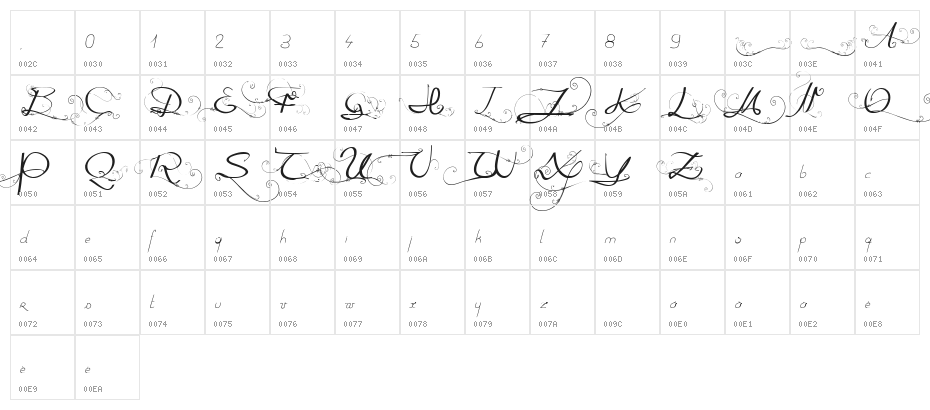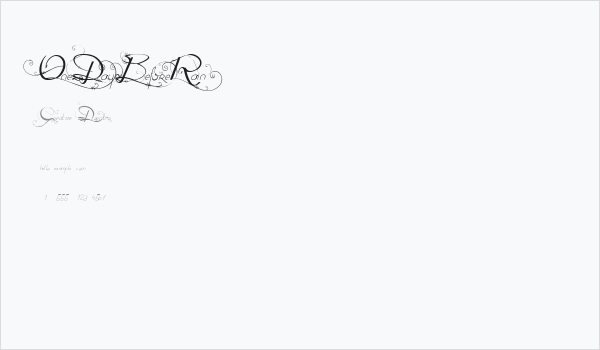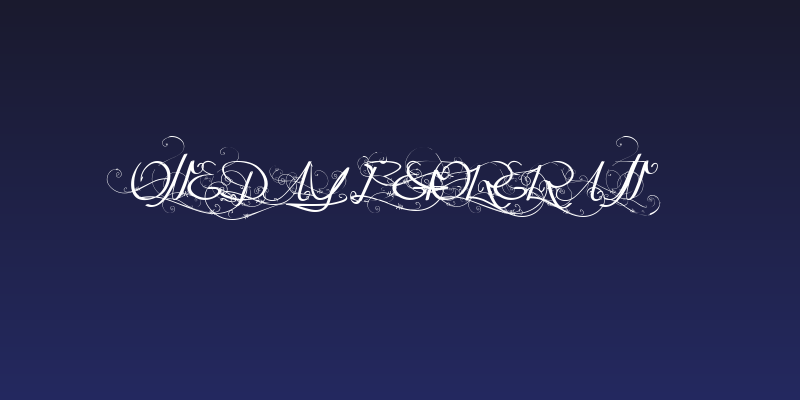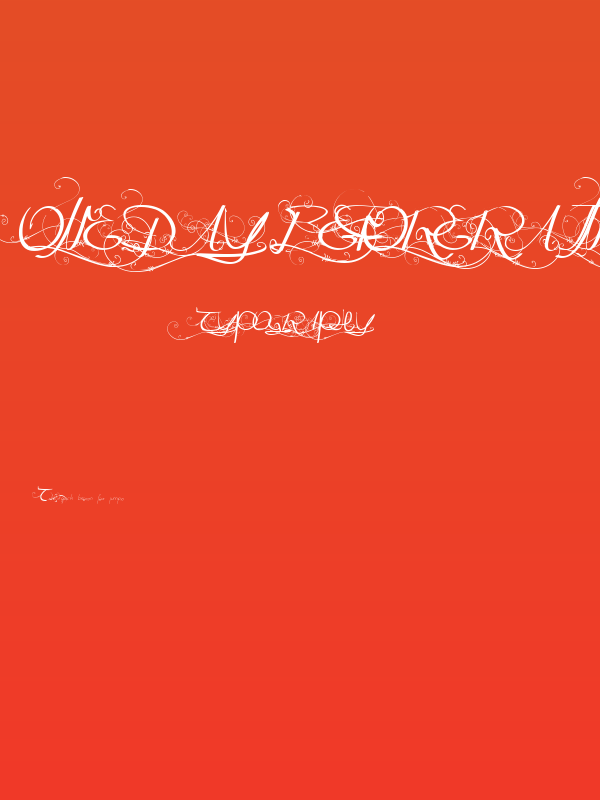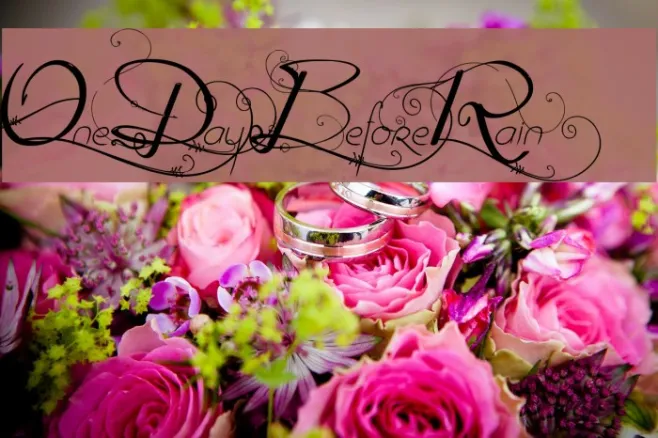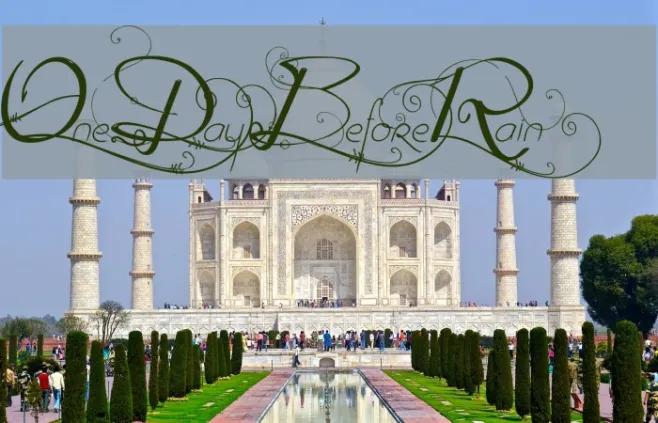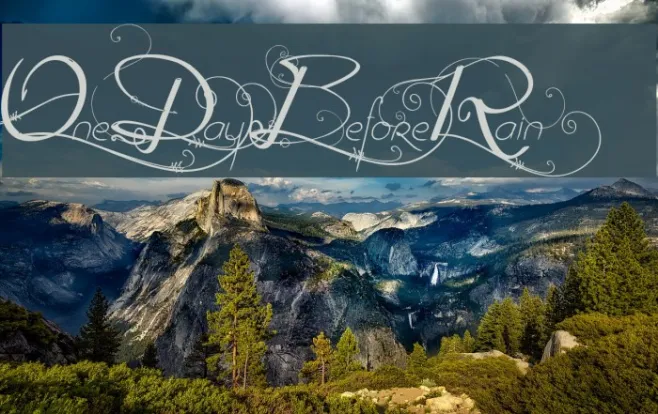
OneDayBeforeRain Font
OneDayBeforeRain Description
This font features an elaborate and decorative style with intricate swirls and flourishes extending from the characters, creating a sense of elegance and sophistication. The uppercase letters are particularly ornate, with each character adorned with unique embellishments that give it a whimsical and artistic appearance. The lowercase letters maintain a more streamlined and slender form, providing a contrast to the elaborate uppercase. The numerals are consistent with the lowercase in their simplicity, yet they retain a touch of the font's overall decorative flair. This font's artistic nature makes it suitable for creative and expressive design projects.
| Use Case | Headlines, Logos, Artistic projects |
| Proposed Projects | Ideal for wedding invitations, artistic posters, branding for luxury products, and decorative headlines. |